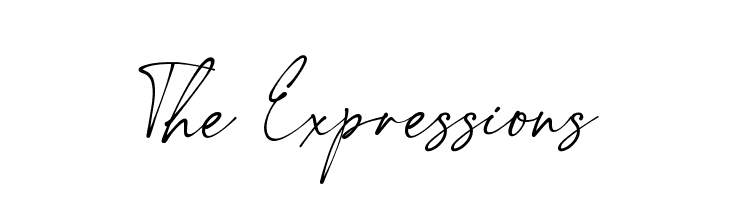
An elegant, calligraphic font with flowing lines and sharp serifs.
A bold, semi-italic font with a futuristic and dynamic design.
A sleek, semi-bold, semi-italic font with a modern, geometric style.
A playful, hand-drawn font with a casual and artistic style.
A playful, eclectic font with vintage-inspired graphics and text styles.
A sleek, thin, italicized font with a modern and elegant style.
A playful, hand-drawn font with bold, rounded letterforms and a whimsical style.
A bold, grungy font with splatter elements and angular letterforms.